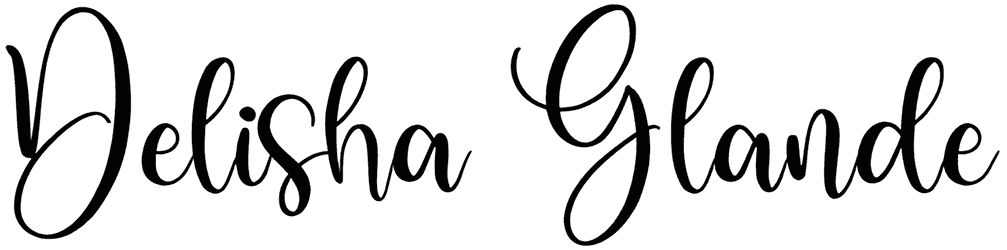
Delisha Glande Font
Delisha Galnde is a superb, well-designed typeface in the calligraphy font type offered in two versions. This script font’s letters have a curvy shape with soft edges that make it memorable to the viewers.
They are thin and have a bent form, while not entirely strict, which seems entertaining. This calligraphy font has a stunning style that can be used for various cases such as magazines, logos, book covers, and T-shirts.